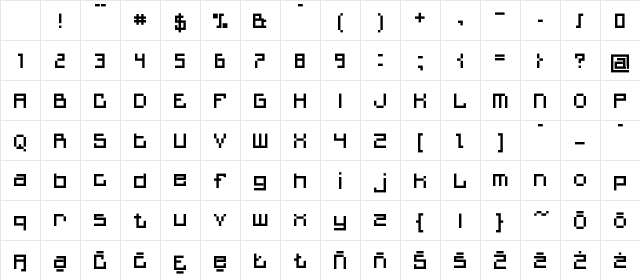
Complete MiniQuan Regular glyph index. Displaying only characters natively supported by MiniQuan Regular font.
MiniQuan is a composed and adaptable typeface that performs quietly and consistently across a wide range of design contexts.